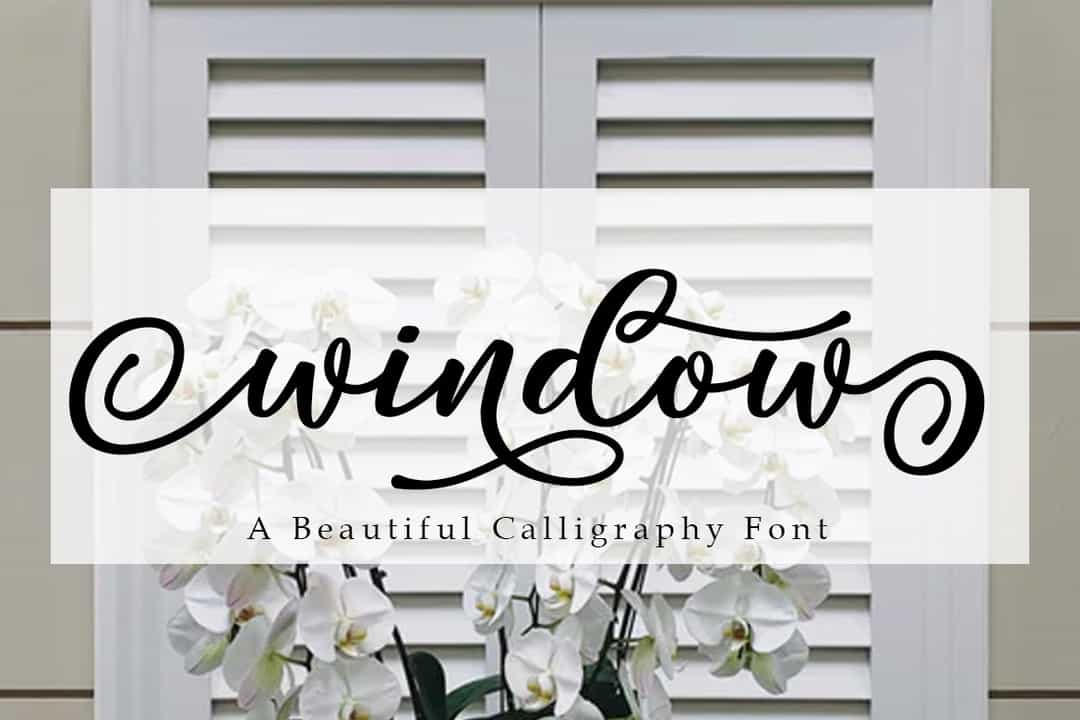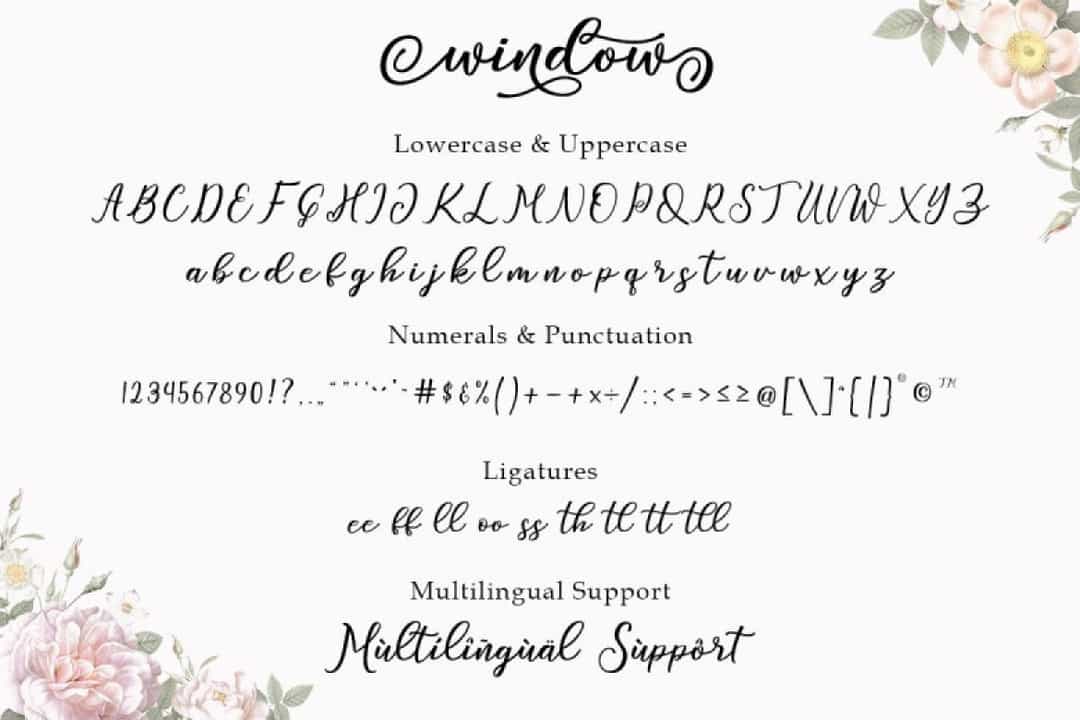
Window is a sweet, soft calligraphy hand-lettered script font. Enjoy its authentic, deep, style for writing elegant invitations or even your favourite memories. This font comes with a lot of Special Features like swashes and alternates, and it is PUA encoded.